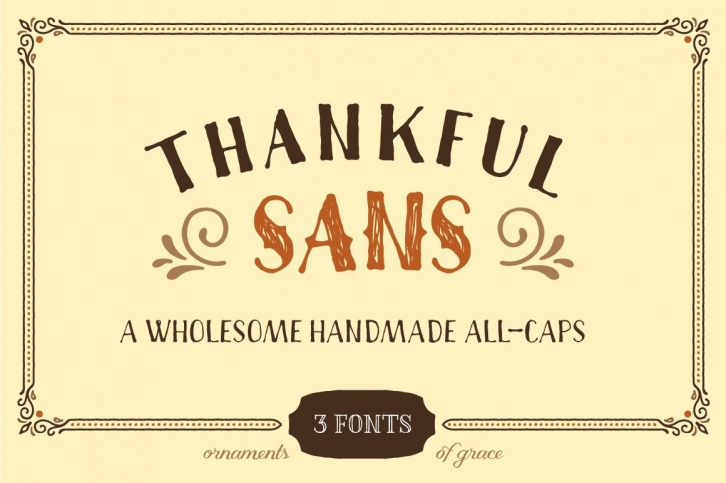
Warm, mulled Apple Cider… Peppery smooth pumpkin pie… Cinnamon, cloves and nutmeg… crisp air and warm, spicy flavors… Leaves partially gilded a brilliant yellow, orange, and red… Heavy autumn clouds against a crisp, fresh azure sky… A fabulously fun Thanksgiving dinner with family and friends… These are just some of the things I absolutely love about an Ohio autumn. These autumnal comforts, early 20th century vintage type, and my own hand lettering helped inspire my latest offering to you: Thankful, because there's a lot to be thankful for!
Thankful Sans: 3 weights (OTF, TTF, webfonts - full character set with extended Latin characters) Thankful Sans is plain (and fancy!) but delightfully wholesome. A steady and cheerful handmade family with a light sense of humor, Thankful Sans is pleasing at small or large sizes for headers, subheaders, or small paragraphs. Lowercase letters are distressed by hand as they jump around subtly on the baseline, forming a charming, hand-lettered appearance. Fancy, Plain, and Slim weights form a cozy, friendly little family.